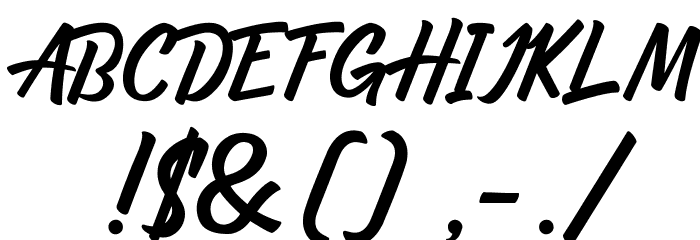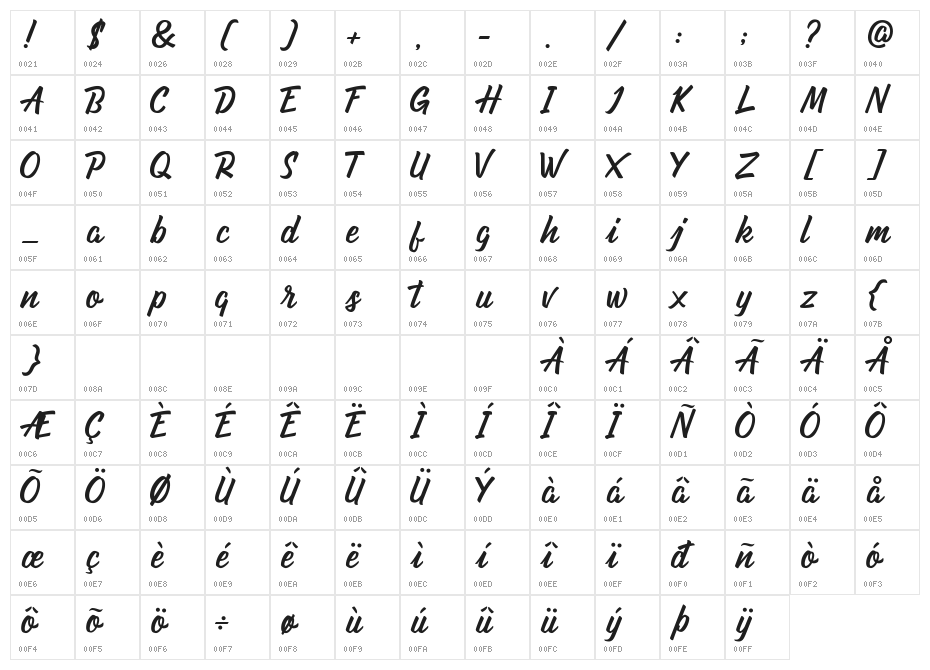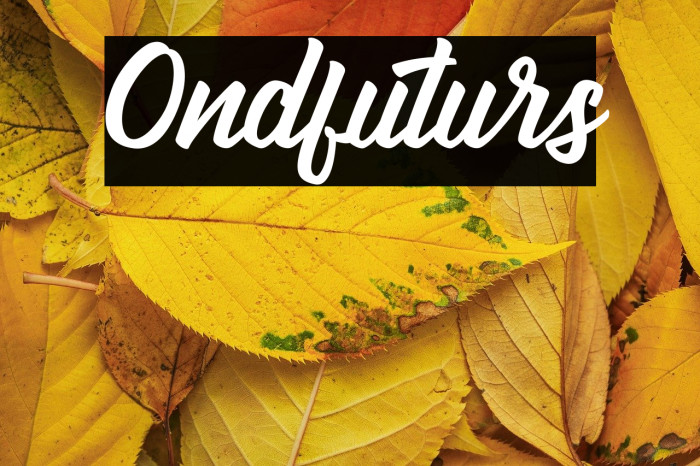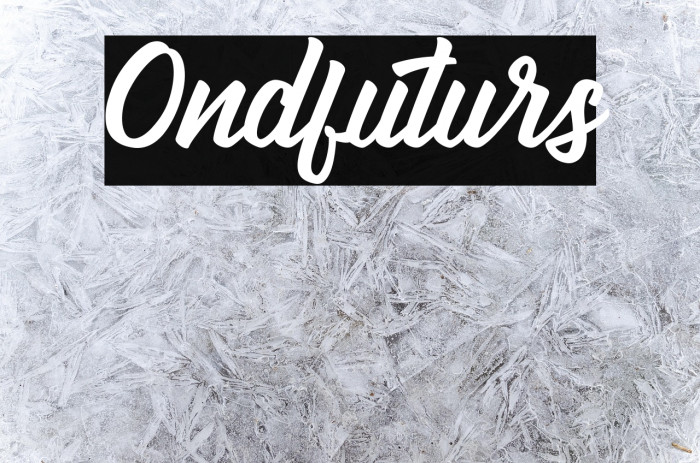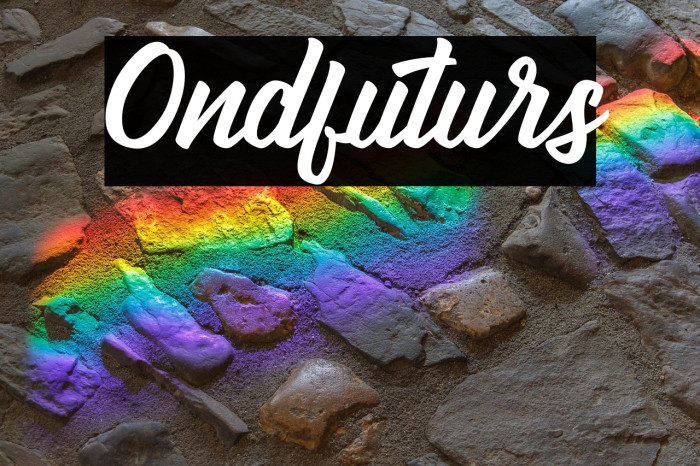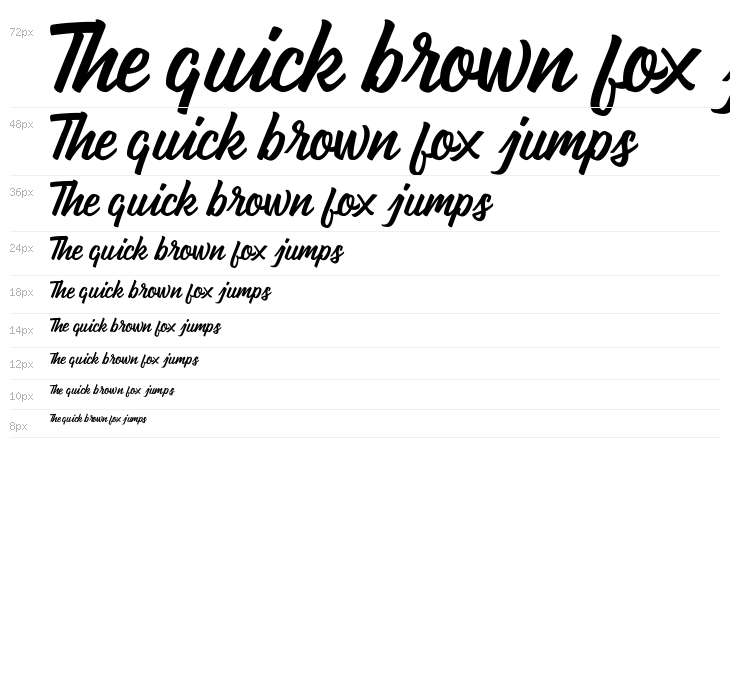
Ondfuturs Font
Ondfuturs Description
This font features a bold and dynamic script style, characterized by its fluid and connected letterforms. The strokes are thick and consistent, giving it a strong presence. The uppercase letters are slightly larger and more pronounced, while the lowercase letters maintain a smooth flow. The font exudes a sense of energy and movement, making it ideal for attention-grabbing designs. Its playful yet sophisticated appearance is enhanced by the slight slant of the characters, adding a touch of elegance. The special characters and numbers are designed to match the overall style, ensuring consistency throughout.
| Use Case | Logos, Headlines, Branding |
| Proposed Projects | Ideal for branding projects, logo design, headlines, and social media graphics that require a bold and energetic touch. |